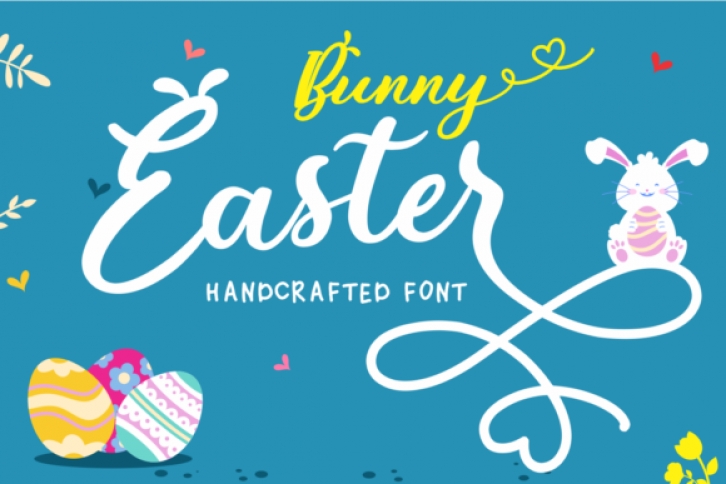
Bunny Easter is charming and dynamic, but also elegant. This versatile script font has a wide range of applications ranging from Easter DIY projects to spring-themed branding, and is guaranteed to add a magical touch to your next design.
This font is PUA encoded which means you can access all of the fantastic glyphs and swashes with ease! It also features a wealth of special features including alternate glyphs and ligatures.